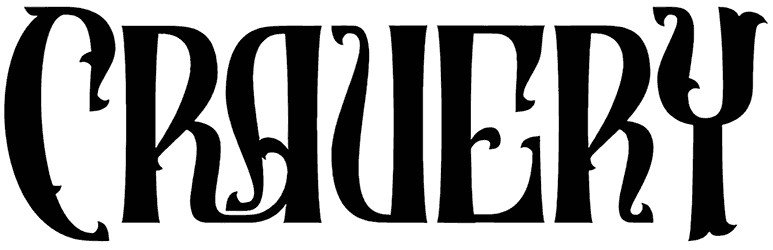
Cravery Font
Cravery is an all-caps retro font that carries geometrical characters and comes with a unique style. This masterpiece can widen your hands in the middle of bringing your innovative projects, such as movie posters, branding, blog posts, logos, or flyers, to real life. Aside from not supporting numbers, this barbershop font has the real ability to provoke a sense of classic, vintage, eerie, or eccentricity.
Cravery is a typeface that is made all characters in uppercase. It is an excellent choice to add the right amount of retro touch. This typeface with artistic style looks very interesting for loads of different projects and promotions. This would work great all-in-one package for your logo, book cover, poster, t-shirt, branding, advertisement needs, and many more.